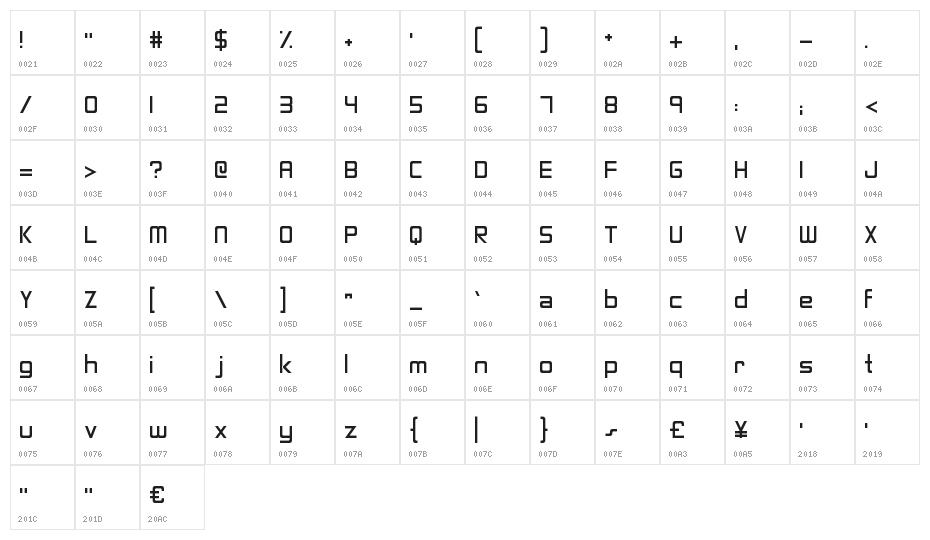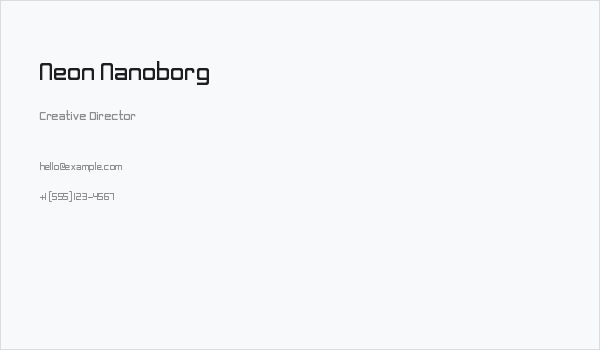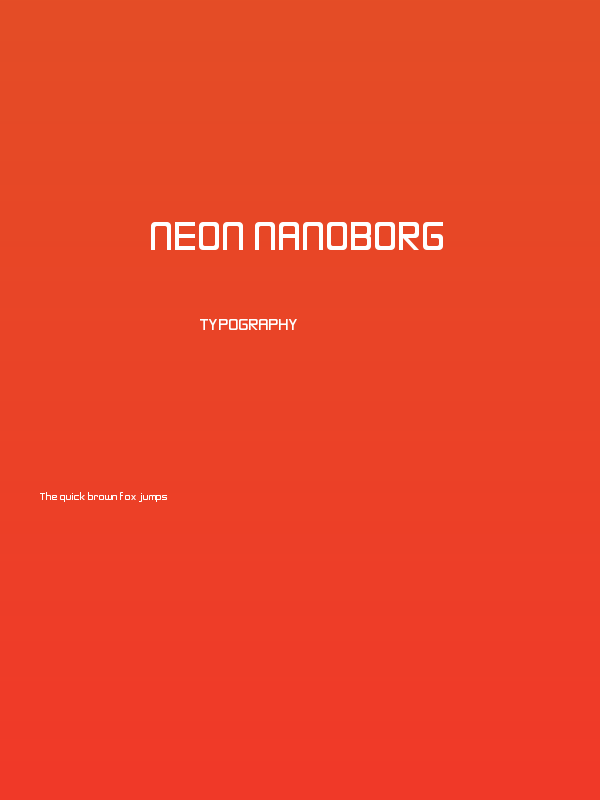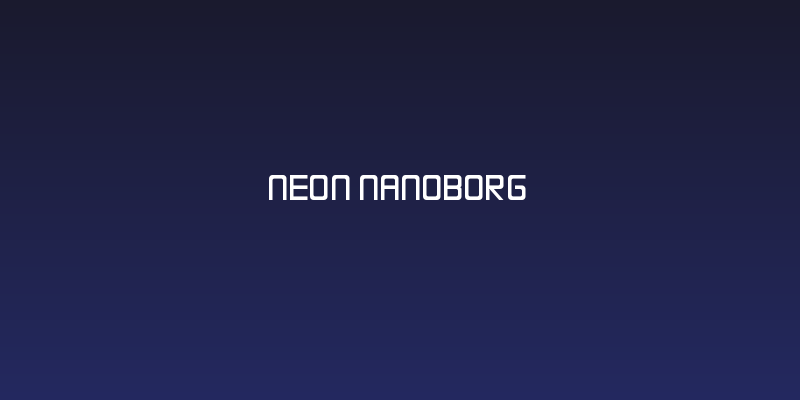
Neon Nanoborg Font
Neon Nanoborg Description
This font features a futuristic and geometric design, characterized by its clean lines and squared-off edges. The uppercase and lowercase letters maintain a consistent height, giving it a uniform appearance. The numerals and special characters follow the same design principles, ensuring a cohesive look across all glyphs. The font's structure is modern and slightly robotic, making it suitable for tech-related projects. Its readability is enhanced by the balanced spacing between characters, and the consistent stroke width provides a sleek and polished finish.
Use CaseLogos, Headlines, Digital Interfaces
Proposed ProjectsIdeal for tech branding, digital interfaces, video game design, and futuristic-themed posters.